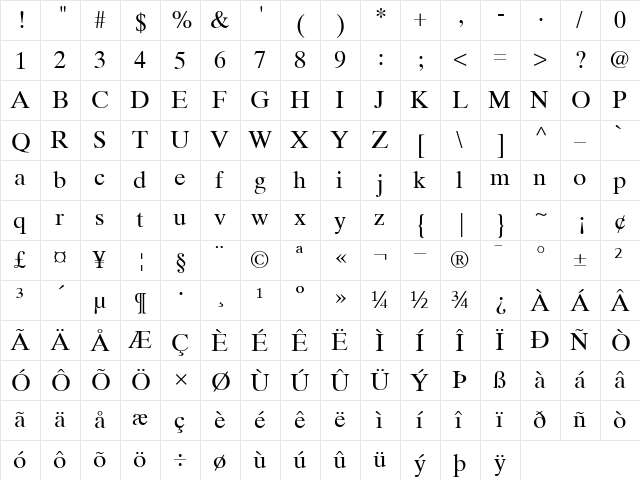
TimesTenRoman Roman Font Preview
TimesTenRoman Roman
TimesTenRoman Roman Font Details
Design Context for TimesTenRoman Typeface
TimesTenRoman takes a measured approach to typography — its balanced proportions and neutral character make it a reliable workhorse for both digital and print work.